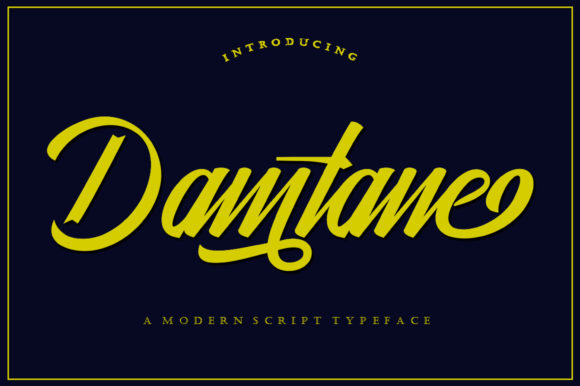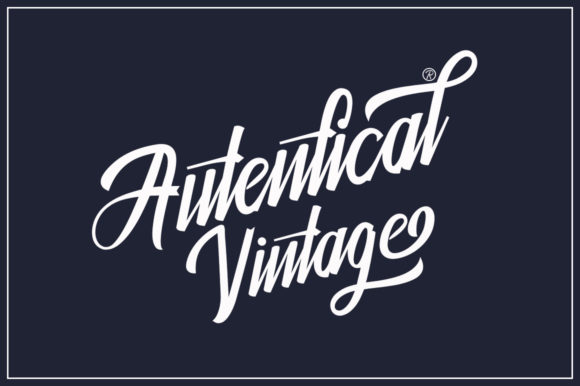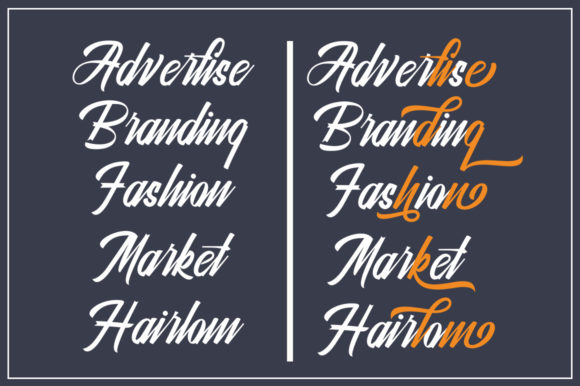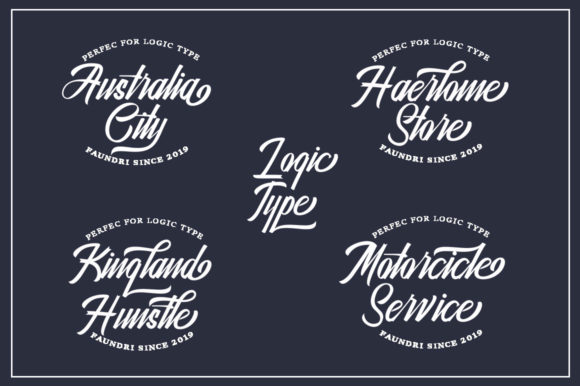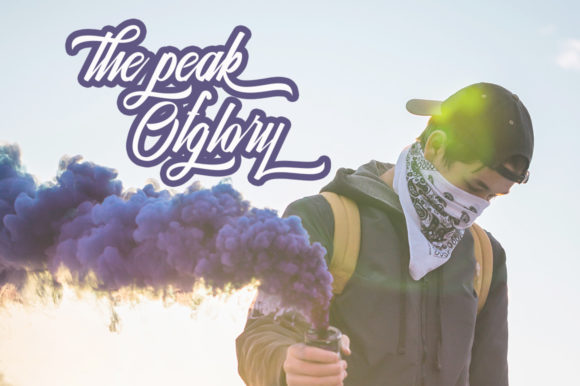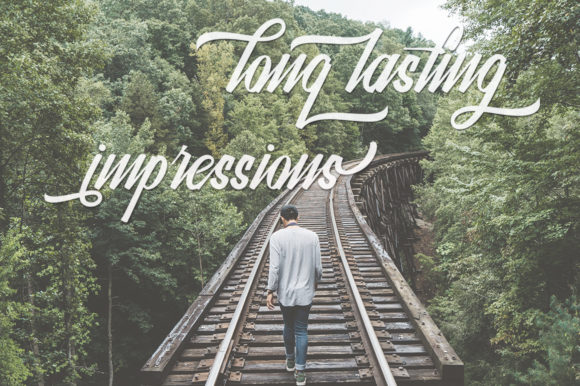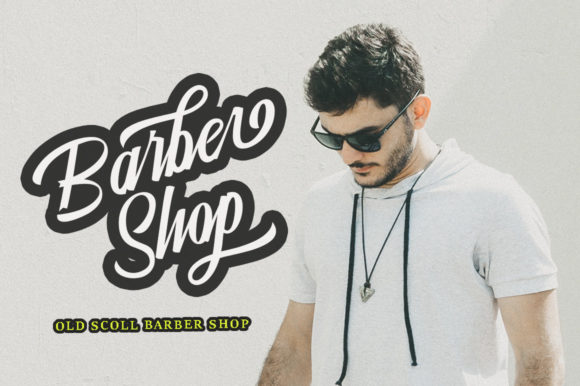
Damtane Font
About Damtane Font
Damtane is a modern calligraphy font with beautiful swashes. Its timeless appeal makes it a perfectly versatile font for any design occasion!